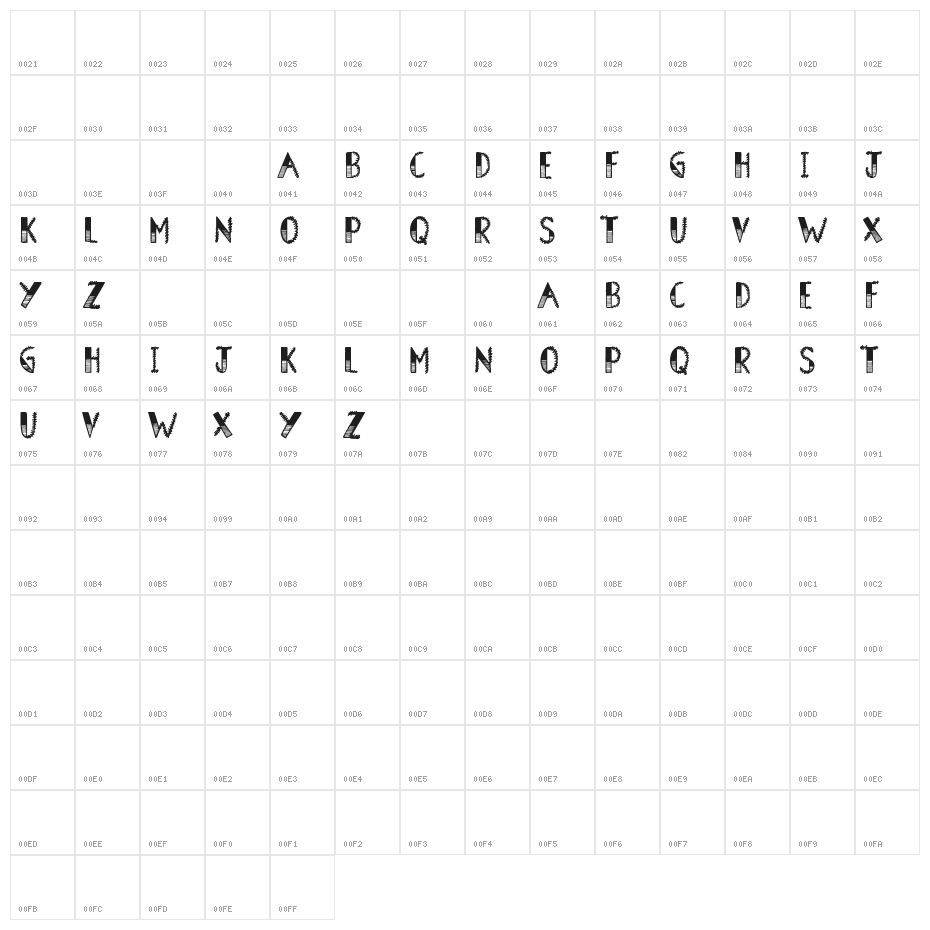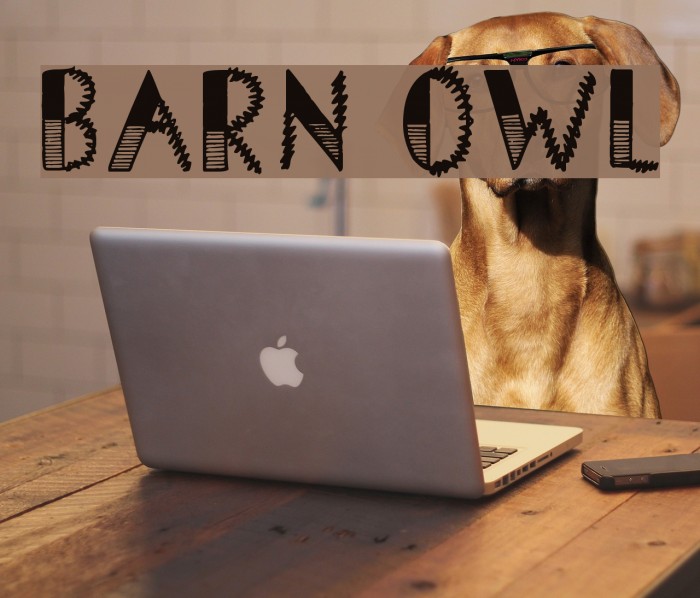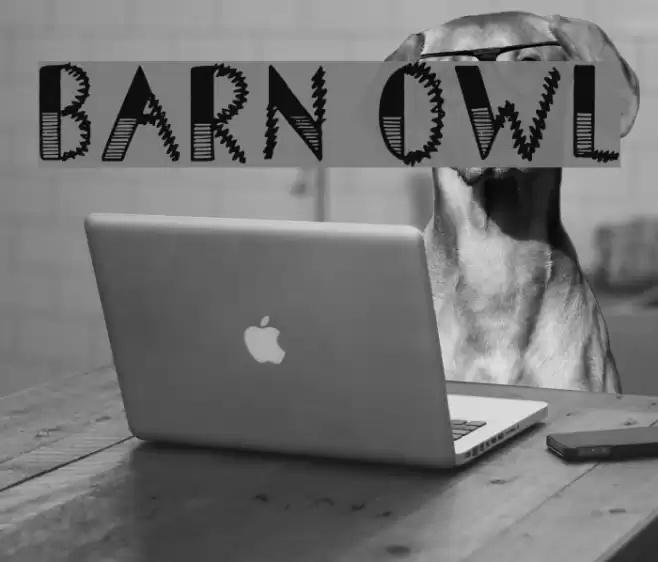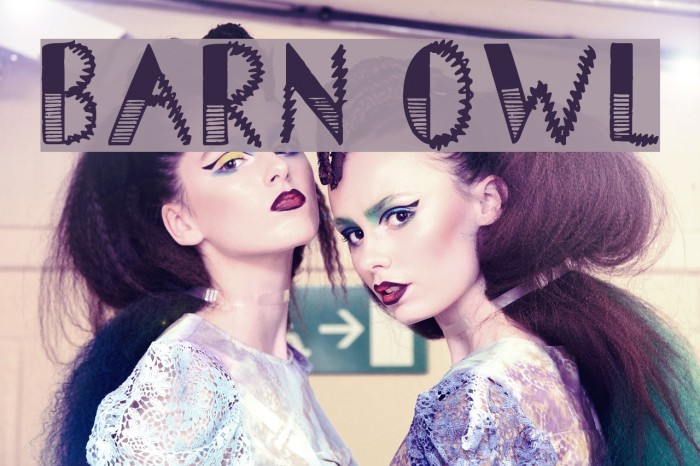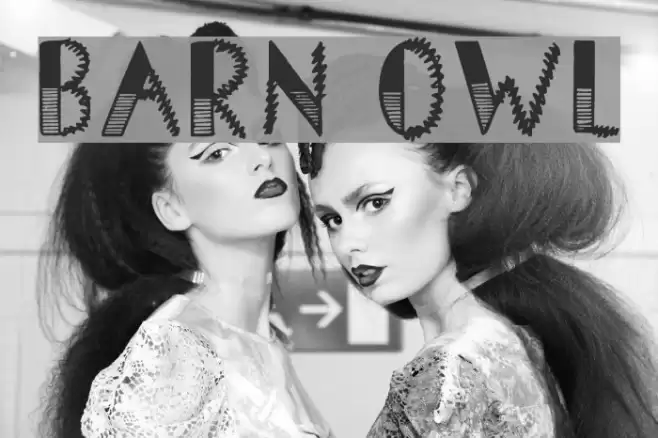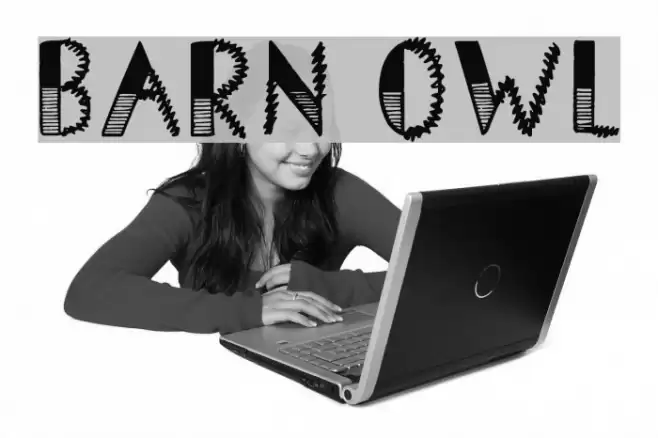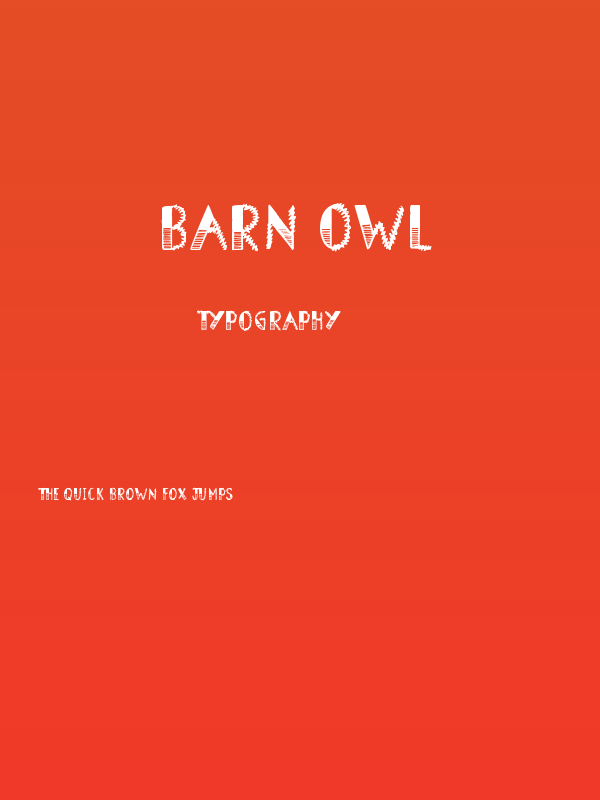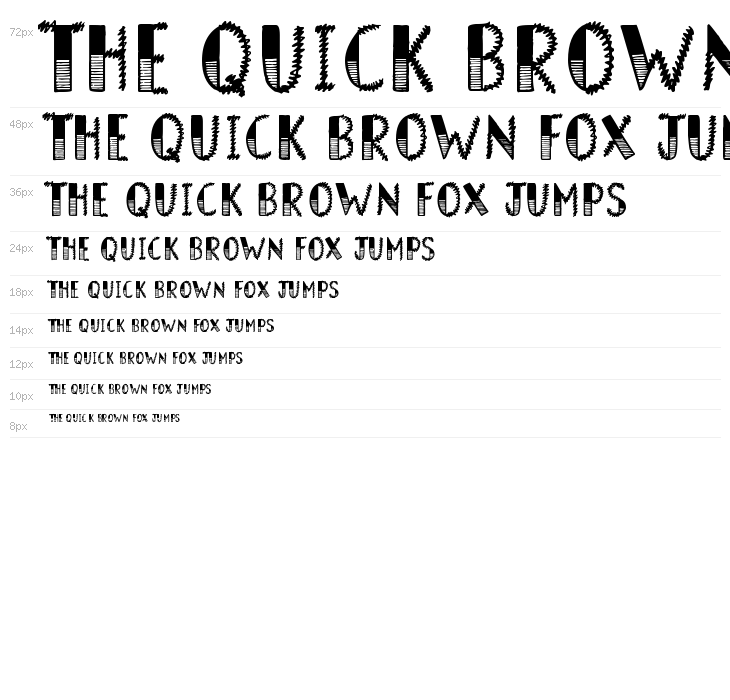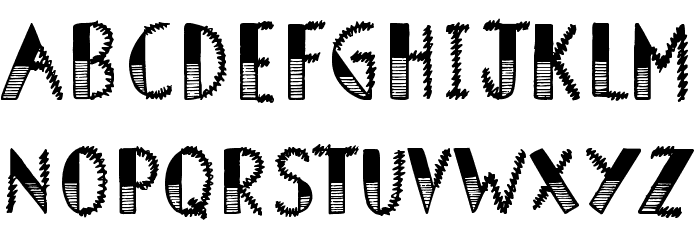
Barn Owl Font
Barn Owl Description
This font features a bold and playful design with a unique zigzag pattern along the edges of each character, giving it a dynamic and energetic appearance. The letters are uppercase and have a consistent width, with a slight slant that adds to their whimsical nature. The interior of each letter is filled with a striped pattern, creating a striking contrast against the bold outlines. This font is perfect for projects that require a fun and eye-catching typeface, such as children's books, posters, or creative branding materials.
| Overall Style | Playful, Energetic |
| Proposed Projects | Ideal for children's books, posters, and creative branding. |